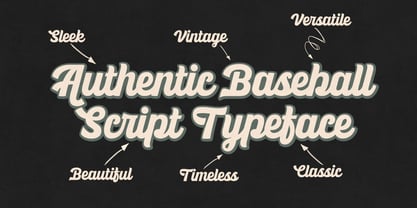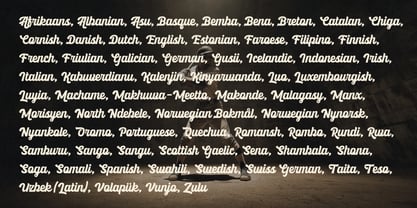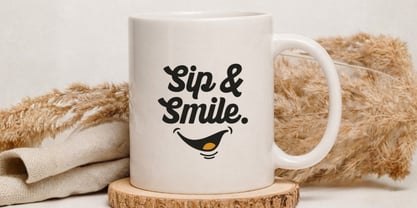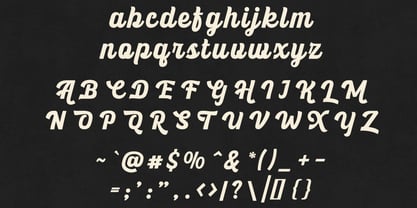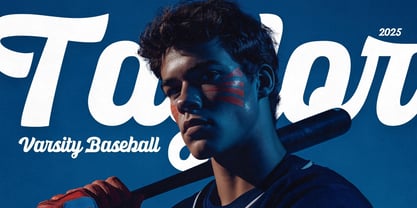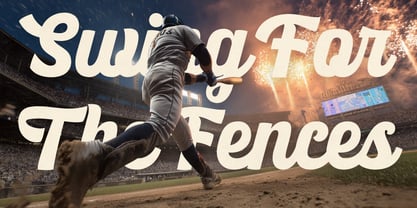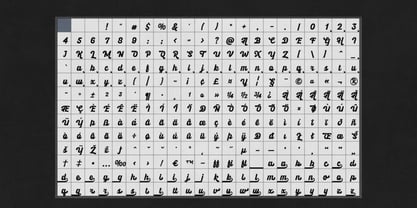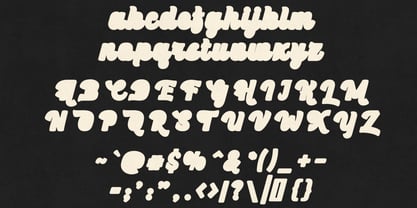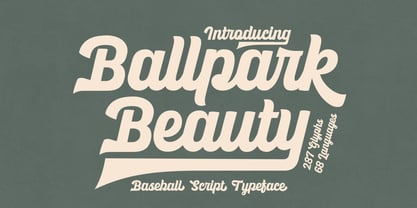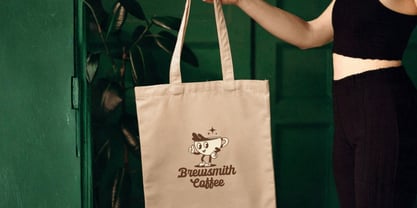
Ballpark Beauty
by Hipfonts
The Ballpark Beauty Font Family was designed by Igor Ovsyannykov and published by Hipfonts. Ballpark Beauty contains 2 styles and family package options. More about this family
Ballpark Beauty is a grand slam of a typeface crafted for designers who want to bring the unmistakable spirit of classic baseball aesthetics into their work. This gorgeous script font captures the sweeping motion, bold confidence, and vintage charm of America’s favorite pastime, making every word feel like it belongs on a stadium scoreboard, a retro jersey, or a handcrafted ballpark sign. With two dynamic styles Regular and Extruded, Ballpark Beauty gives you instant 3D potential. Create striking layered logos, dimensional badges, standout packaging, nostalgic signage, sports posters, team merchandise, apparel designs, and so much more. The Regular weight delivers smooth, flowing script elegance, while the Extruded weight adds instant depth, shadow, and visual impact with zero effort. Every curve and stroke has been carefully shaped to evoke the timeless energy of athletic lettering bold, spirited, and full of movement. Whether you're designing for sports teams, vintage brands, community events, or retro-inspired projects, Ballpark Beauty steps up to the plate ready to perform.
Designers: Igor Ovsyannykov
Foundry: Hipfonts